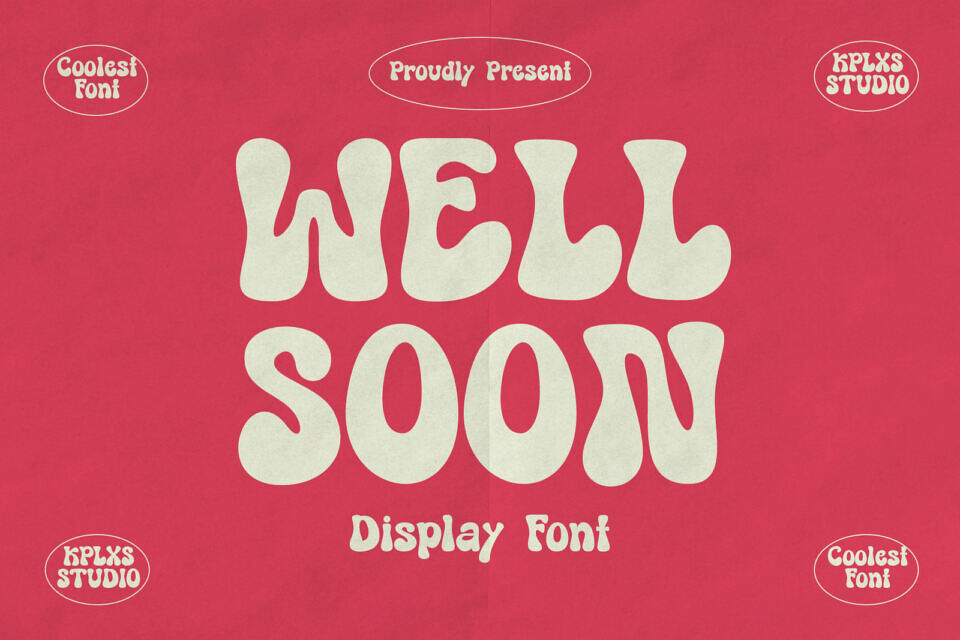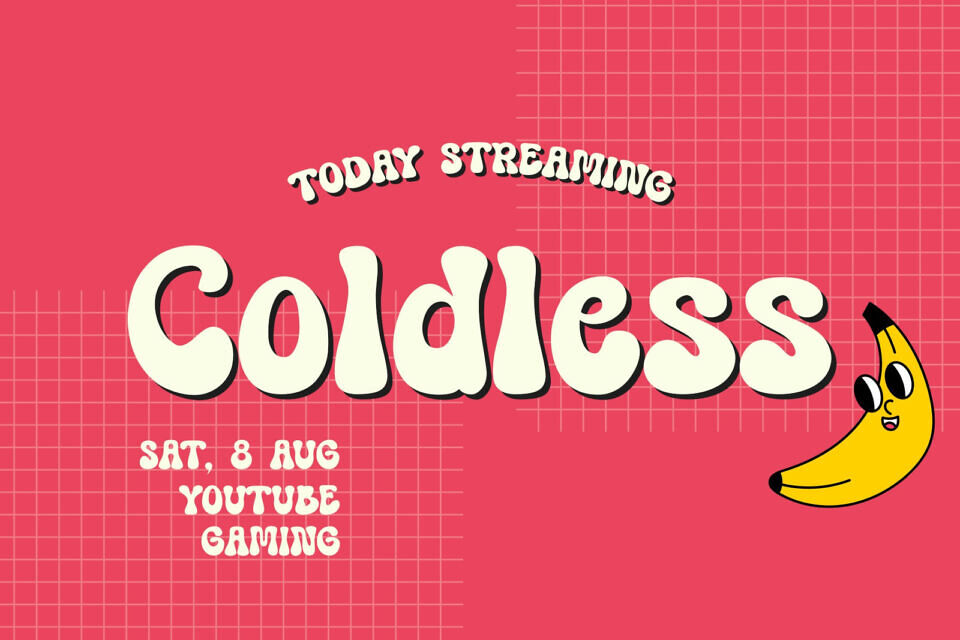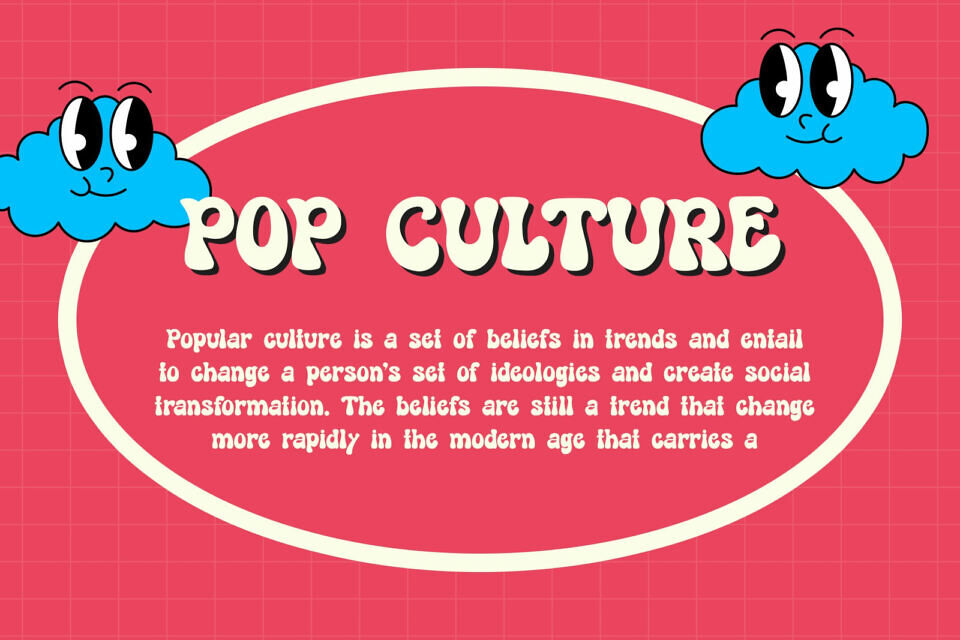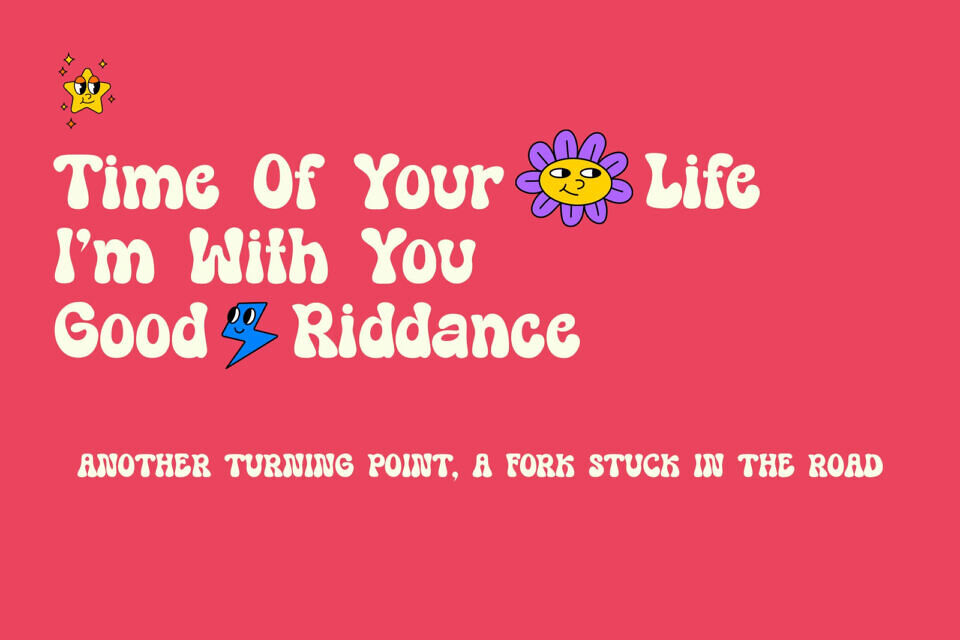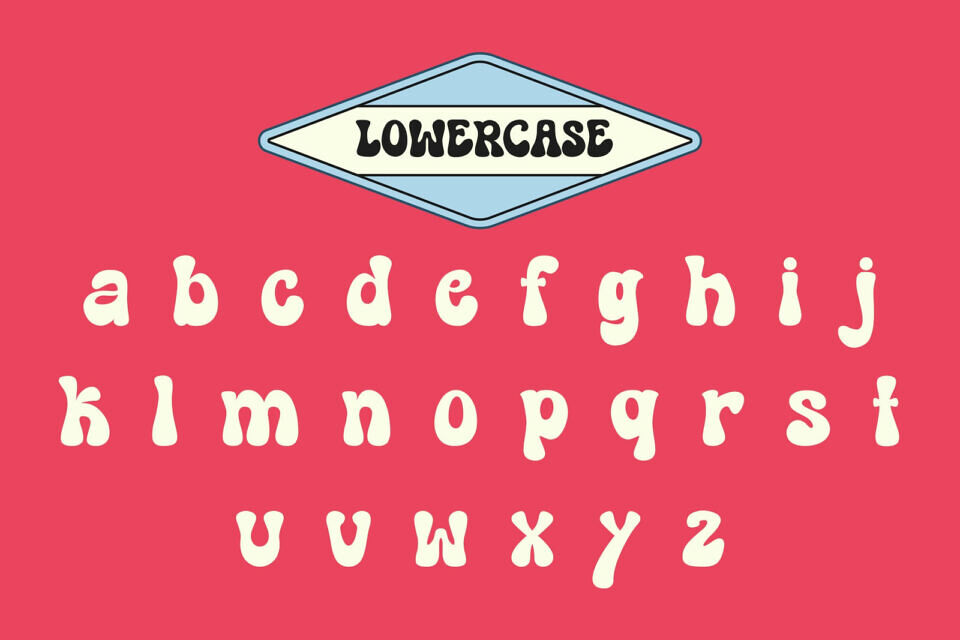
Well Soon is a display font like no other, designed to capture attention and evoke a sense of nostalgia with its quirky and playful curves. As a bubble font, it brings a lively and fun vibe to your projects, making it ideal for creatives seeking a font that’s both bold and versatile. Whether you’re designing posters, merchandise, or digital content, Well Soon adds a splash of character and uniqueness.
Well Soon’s soft, rounded edges and bubbly forms bring a warm and friendly tone to any design. It’s a font that doesn’t just communicate; it engages. The chunky letters are designed with perfect proportions to make your text highly legible while keeping the charm of retro aesthetics alive. Each character is crafted to deliver a touch of whimsy that makes this font stand out in the crowded world of design.
This font takes inspiration from the retro aesthetics of the 70s and 80s, blending it seamlessly with contemporary design sensibilities.